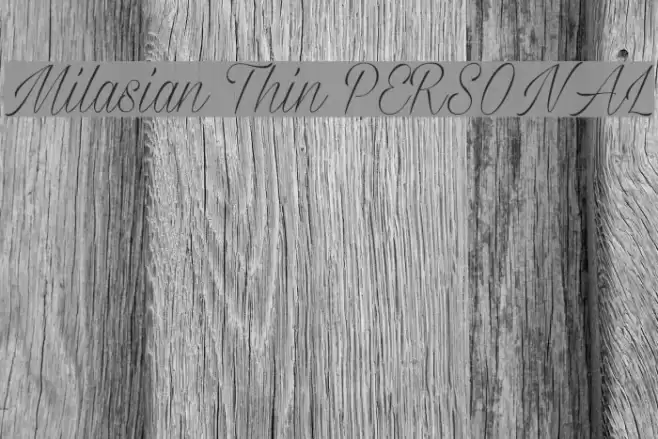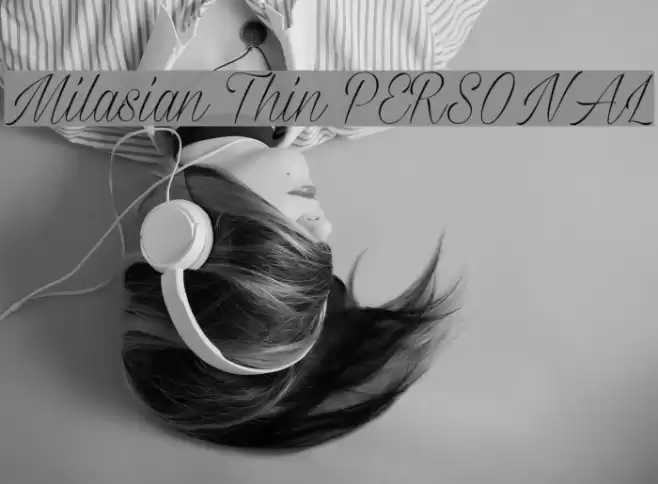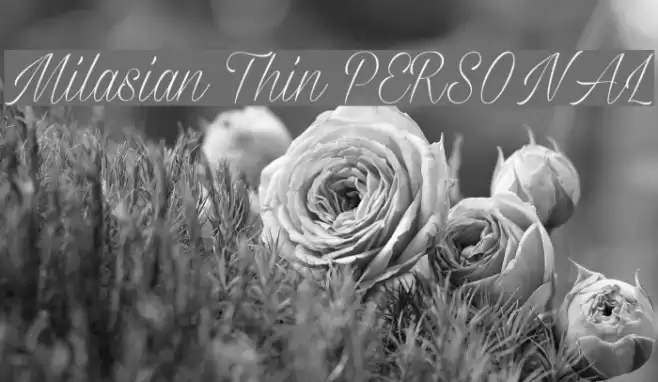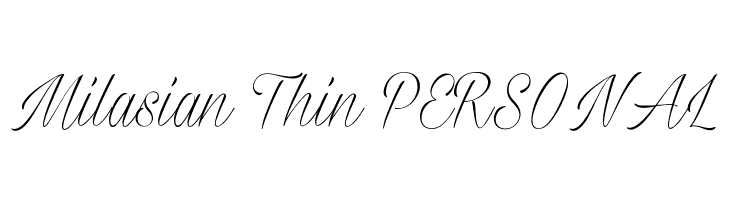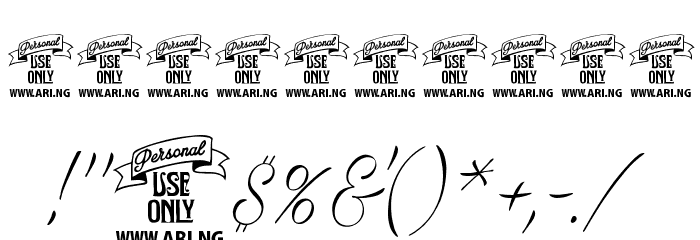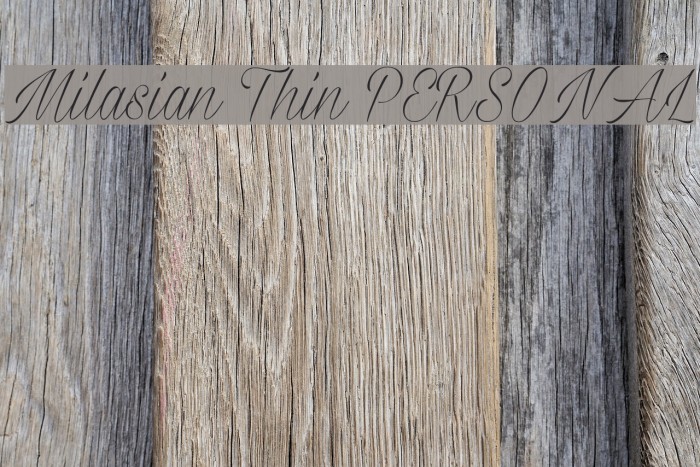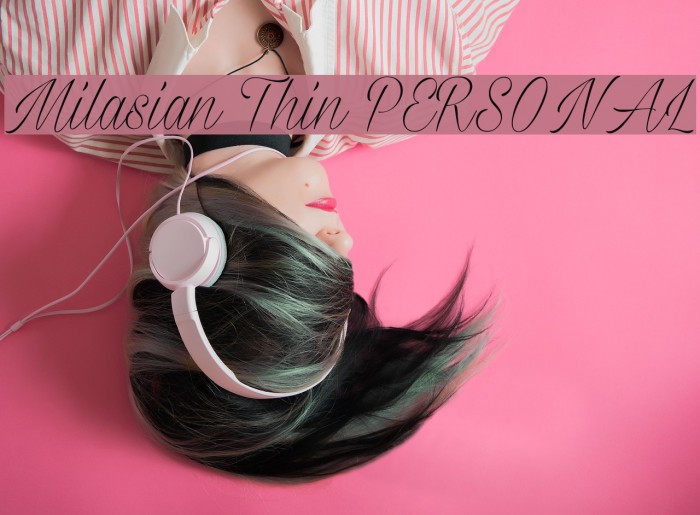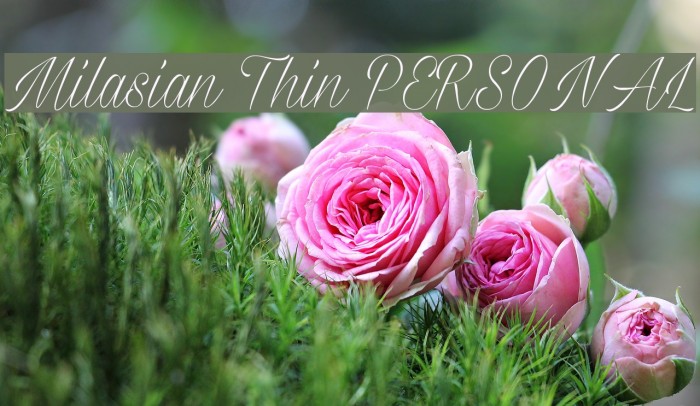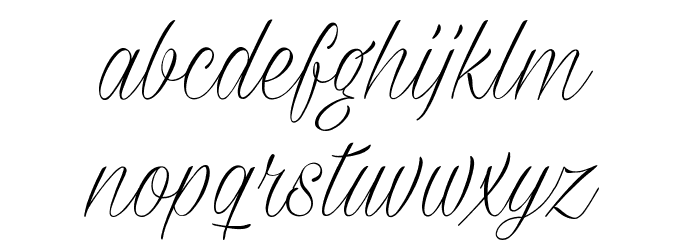
Milasian Thin PERSONAL Font
Milasian Thin PERSONAL Description
This elegant script font features a delicate and flowing design, characterized by its thin, graceful strokes and smooth curves. The uppercase letters exhibit a sophisticated flair, while the lowercase letters maintain a consistent, harmonious style. The font's overall appearance is refined and stylish, making it suitable for projects that require a touch of elegance and class. The numerals and special characters are crafted with the same attention to detail, ensuring a cohesive look across all text elements.
A thin, elegant script font with graceful, flowing strokes from Uncategorized fonts.
- Proposed Projects: Ideal for wedding invitations, elegant branding, personal stationery, and sophisticated logo designs.
- Weight: Light
- Overall Style: Elegant
- Use Case: Logos, Invitations, Branding